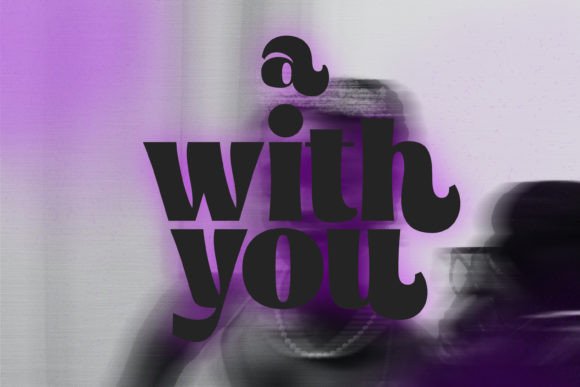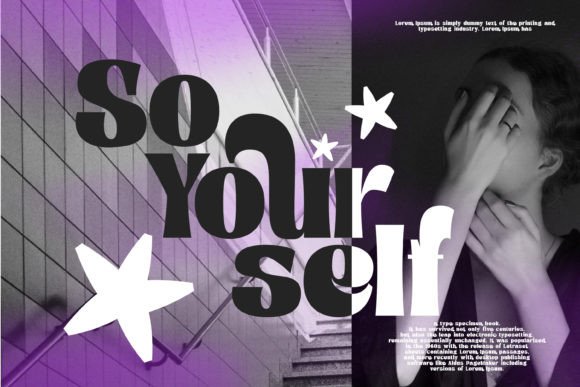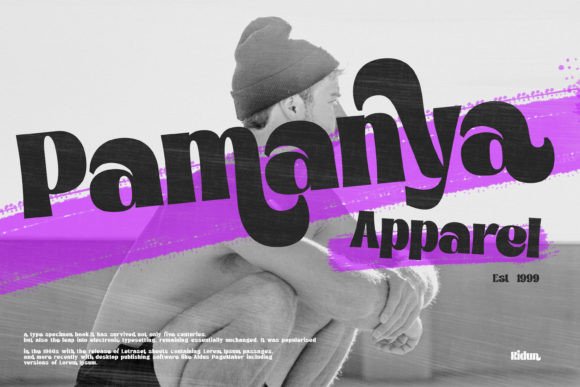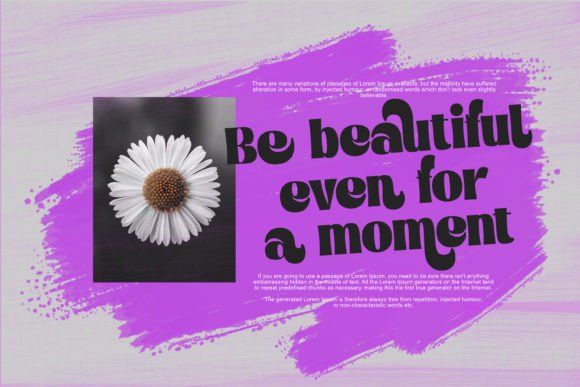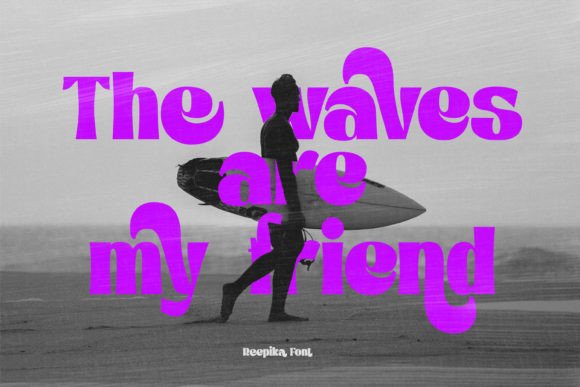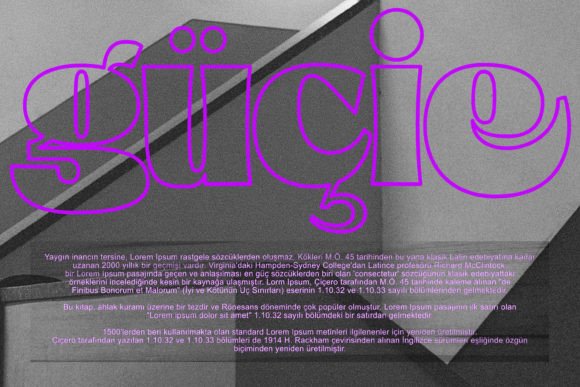
Getting Creative with the Reepika Font
Do you remember that moment when you stumbled upon the perfect font for your design project? The one that instantly sparks inspiration and sets the tone for your entire creative journey? For designers, finding the right font can be a game-changer, and today, we’re excited to introduce you to the Reepika Font – a thick serif font that’s about to become your new go-to companion.
With its unique blend of 70-90s design styles and streetwear flair, the Reepika Font is the perfect fit for any creative project that requires a dash of personality and attitude. Whether you’re working on a logo design, poster, branding, or album cover, this font is sure to elevate your design to the next level.
Key Features of Reepika Font
- Designed with a modern and elegant aesthetic, making it an excellent choice for branding, logos, and other creative endeavors.
Honest Review: Reepika Font
I recently stumbled upon the Reepika Font while searching for a design resource for a creative project. The font’s unique style immediately caught my attention, and I was excited to give it a try.
- ⚠️ The font may not be suitable for all types of projects, particularly those requiring a more formal tone.
- ⚠️ The font’s unique style may not appeal to all designers, so it’s essential to test it thoroughly before committing to a project.
Overall, I was impressed with the Reepika Font’s quality and versatility. While it may not be the perfect fit for every project, it’s a valuable addition to any designer’s toolkit. If you’re looking for a free, high-quality font with a unique style, the Reepika Font is definitely worth checking out.
The Reepika Font is perfect for creative projects, such as logo design, branding, and typography. It’s also great for creating presentations, documents, and social media graphics.